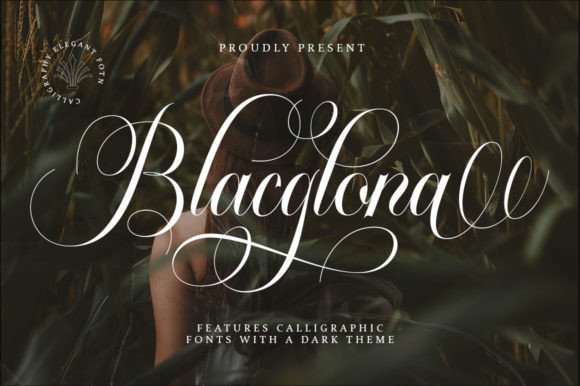
Immerse yourself in the world of sophisticated typography with Blacglona Font, a script font that exudes elegance and charm. Crafted by the talented Pista Mova, Blacglona is not just a font; it's an artistic expression that transforms your designs into captivating masterpieces.
With its graceful curves and sweeping strokes, Blacglona Font adds a touch of timeless beauty to your creations. Whether you're designing wedding invitations, crafting heartfelt stationary art, or creating eye-catching social media posts, Blacglona Font elevates your designs to new heights of sophistication.
Unleash your creativity and let Blacglona Font guide you through a world of endless possibilities. Its versatility knows no bounds, allowing you to explore a wide range of design styles. From classic and traditional to modern and contemporary, Blacglona Font seamlessly adapts to your vision, bringing your ideas to life with unparalleled grace.
Experience the magic of Blacglona Font today and elevate your designs to new realms of elegance. Embrace its captivating charm and let your creativity flourish. Let Blacglona Font be your muse and watch as your designs transform into works of art that leave a lasting impression.